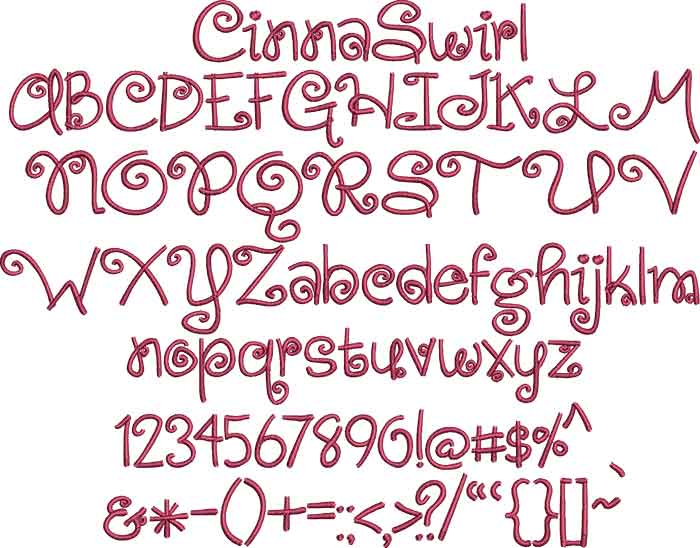
BX Embroidery Font: CinnaSwirl
BX Embroidery Font: CinnaSwirl Font Bundle (4 sizes) is a decorative, curly, stylized machine embroidery font that includes A-Z, a-z, 0-9 and punctuation; 4 sizes.
CinnaSwirl is a decorative, curly, stylized machine embroidery font that includes A-Z, a-z, 0-9 and the following punctuation: ~`!@#$%^&*()-+={}[]|:;”‘<>,.?/ (93 total characters).
Each character in this alphabet is individually manually digitized; we do not use a TrueType to Stitches conversion utility to create our fonts. Additionally, stitch attributes such as stitch type, density, compensation, and underlay are optimized for each size available. Choose the size closest to what you need. Shrinking the smallest size is not recommended.
Our fonts were manually digitized; we do not use a TrueType to Stitches conversion utility to create our fonts. Plus, stitch attributes such as density, compensation, and underlay are optimized for each size available.